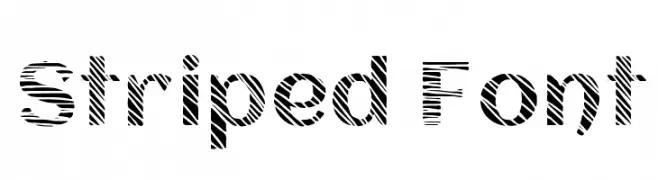
A bold, striped font with a modern, energetic style.
A whimsical, heart-themed decorative font perfect for romantic projects.
A charming handwritten font with fluid, organic strokes and playful elegance.
A playful, hand-drawn decorative font with bold strokes and intricate patterns.
A modern, rounded sans-serif font with a bold, oblique style.
A modern, rounded sans-serif font with a clean and approachable design.
A modern, sans-serif font with a slight oblique slant and rounded edges.
A clean, modern sans-serif font with geometric structure and rounded edges.
A sleek, modern, and slightly oblique font with a light, airy feel.
A modern, geometric font with rounded edges and consistent stroke width.